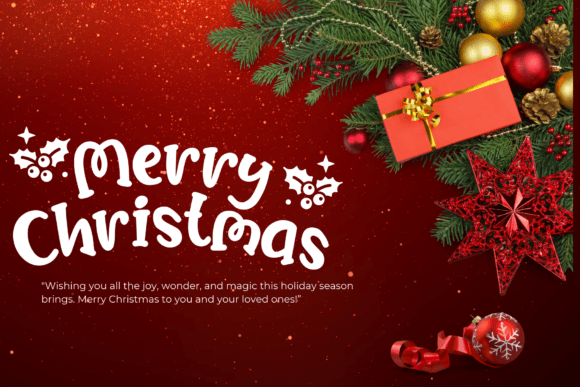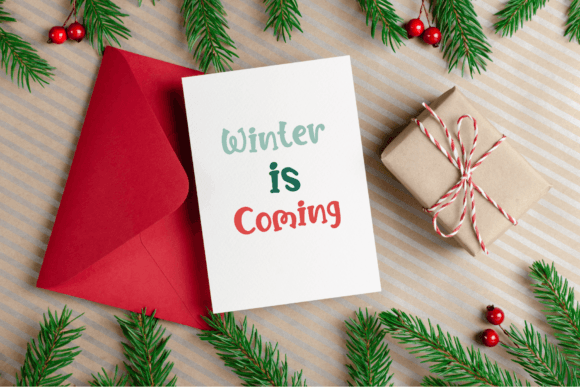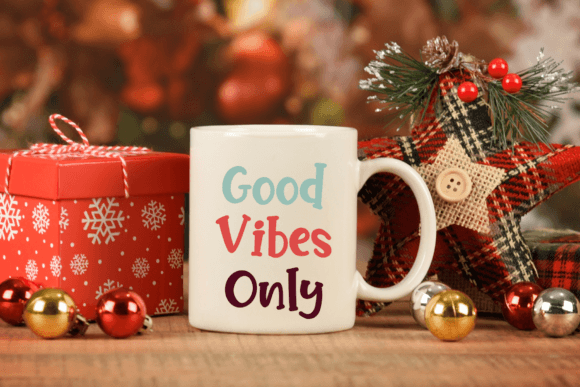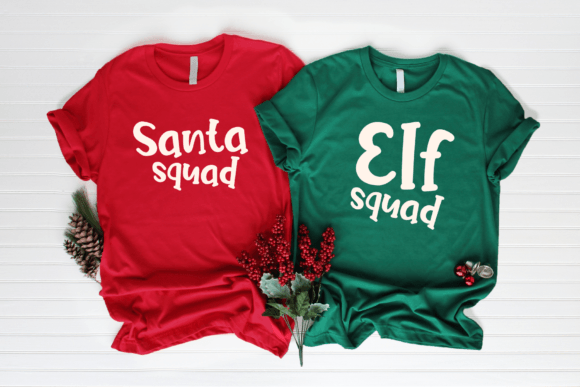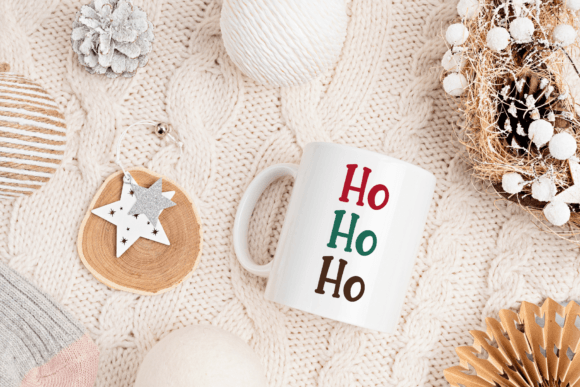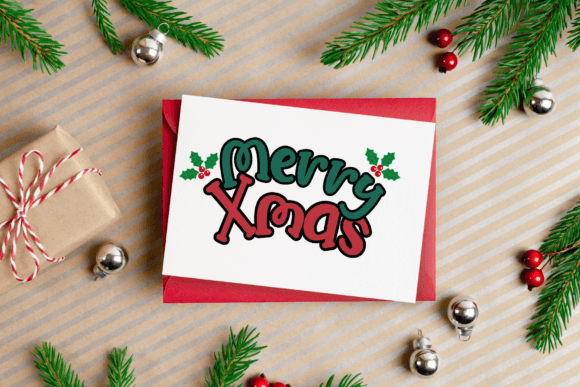
Introducing Eggnog Font: The Perfect Handwritten Font for Your Creative Projects
Are you looking for a font that embodies playfulness and authenticity? Look no further than Eggnog Font! This adorable handwritten font is perfect for adding a personal touch to your favorite projects, from blog posts and logos to invitations and decorations. In this article, we’ll dive into the world of Eggnog Font and explore its features, uses, and benefits for designers and crafters.
What is Eggnog Font?
Eggnog Font is a cute and charming handwritten font that is sure to capture the hearts of designers and crafters alike. Its playful and authentic style makes it an excellent choice for a wide range of creative projects. Whether you’re looking to add a touch of whimsy to your blog posts, create a unique logo or brand identity, or design eye-catching invitations and greeting cards, Eggnog Font is the perfect choice.
Features of Eggnog Font
So, what makes Eggnog Font so special? Here are just a few of its key features:
• Playful and Authentic Style: Eggnog Font has a unique, handwritten style that is both playful and authentic. Its irregularities and quirks give it a charming, homemade feel that is sure to delight.
• Versatile: Eggnog Font is incredibly versatile, making it suitable for a wide range of creative projects, from digital designs to print materials.
• Easy to Read: Despite its playful style, Eggnog Font is easy to read, making it perfect for use in body text, headings, and titles.
Uses for Eggnog Font
So, what can you use Eggnog Font for? The possibilities are endless! Here are just a few ideas to get you started:
• Blog Posts: Add a touch of personality to your blog posts with Eggnog Font. Use it for headings, titles, and even body text to create a unique and engaging reading experience.
• Logos and Branding: Create a memorable logo or brand identity with Eggnog Font. Its playful style makes it perfect for businesses and brands that want to stand out from the crowd.
• Invitations and Greeting Cards: Eggnog Font is perfect for designing invitations, greeting cards, and other paper crafts. Its charming style is sure to delight recipients and make your creations stand out.
• Decorations: Use Eggnog Font to add a personal touch to your decorations, from banners and signs to wall art and home decor.
So, what are the benefits of using Eggnog Font for designers and crafters? Here are just a few:
• Adds a Personal Touch: Eggnog Font adds a personal touch to your designs, making them more relatable and engaging.
• Time-Saving: With Eggnog Font, you can create professional-looking designs in no time. Its pre-designed characters and glyphs save you time and effort, allowing you to focus on the creative process.
In conclusion, Eggnog Font is a versatile and charming handwritten font that is perfect for designers and crafters looking to add a personal touch to their creative projects. Its playful and authentic style makes it suitable for a wide range of applications, from blog posts and logos to invitations and decorations. With its ease of use, time-saving features, and professional-looking results, Eggnog Font is a must-have for anyone looking to elevate their designs and creations.